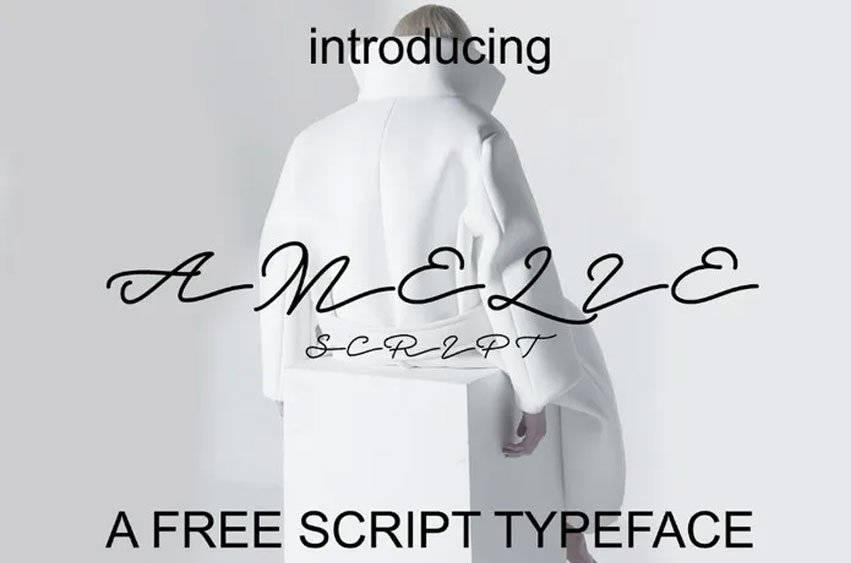
Amelie Script Font
Amelie Script Font is a hand lettering font from Polythene Designs that would be perfect for handwritten manuscript.
These are ideal for wedding invitations, logotypes, headers of websites, logotypes of fashion styles, among others and many more uses.